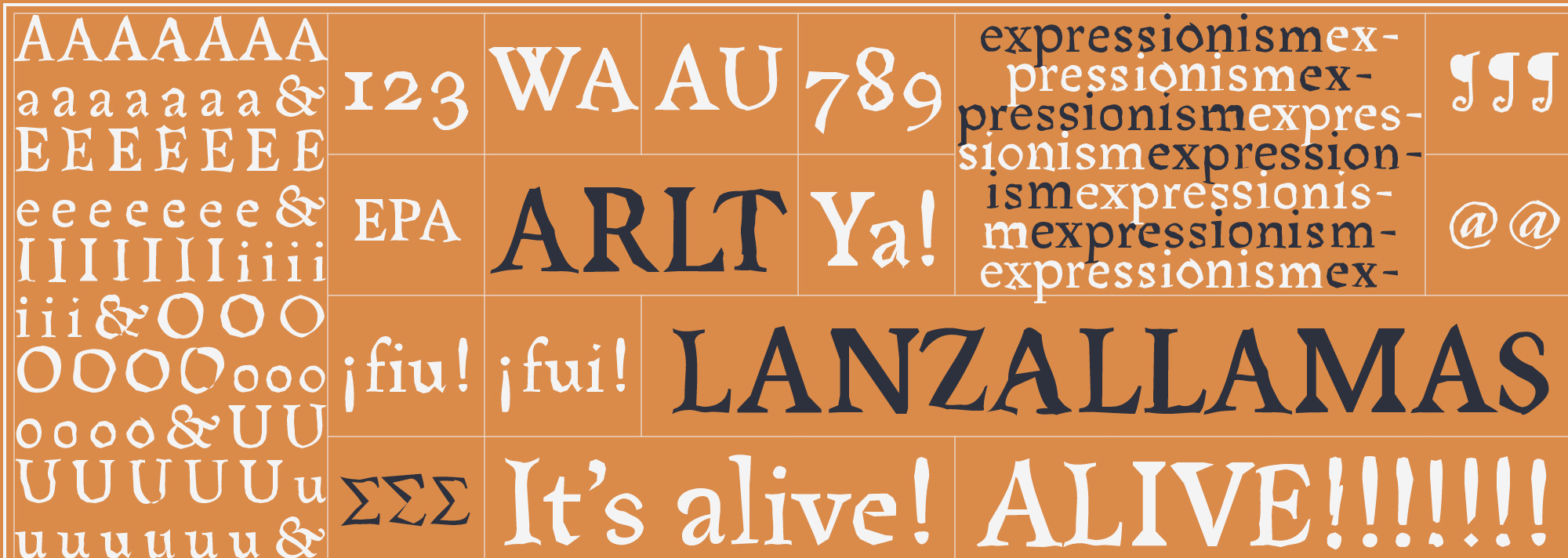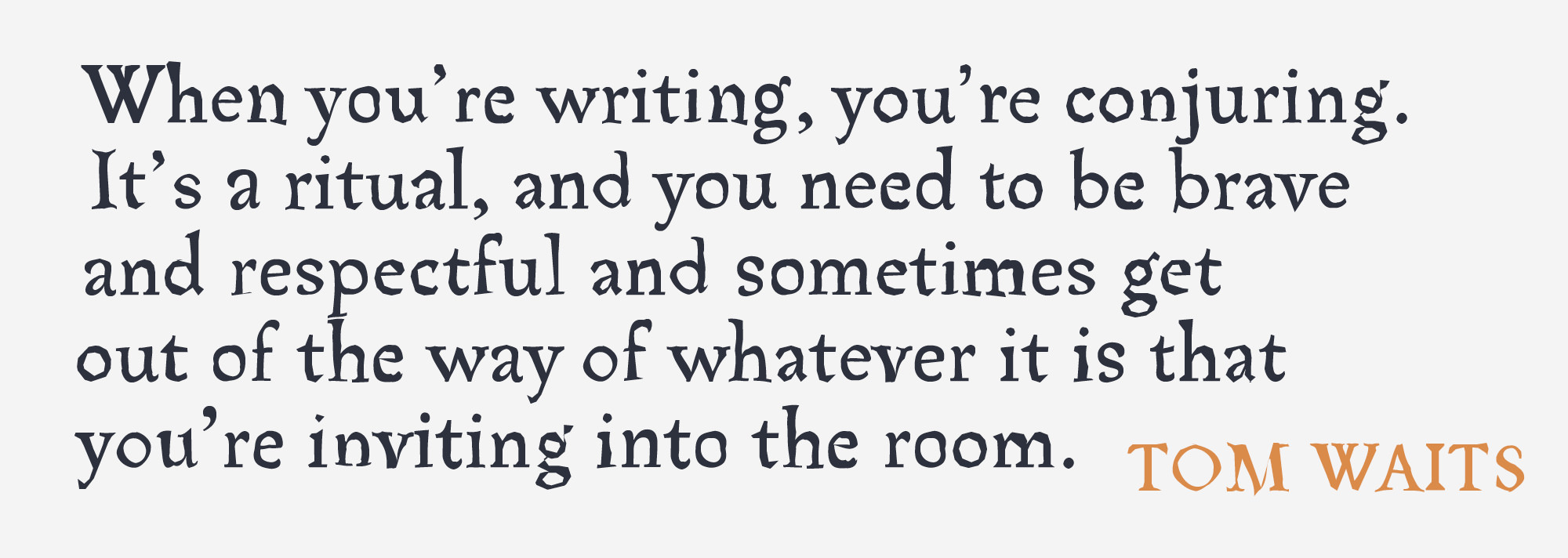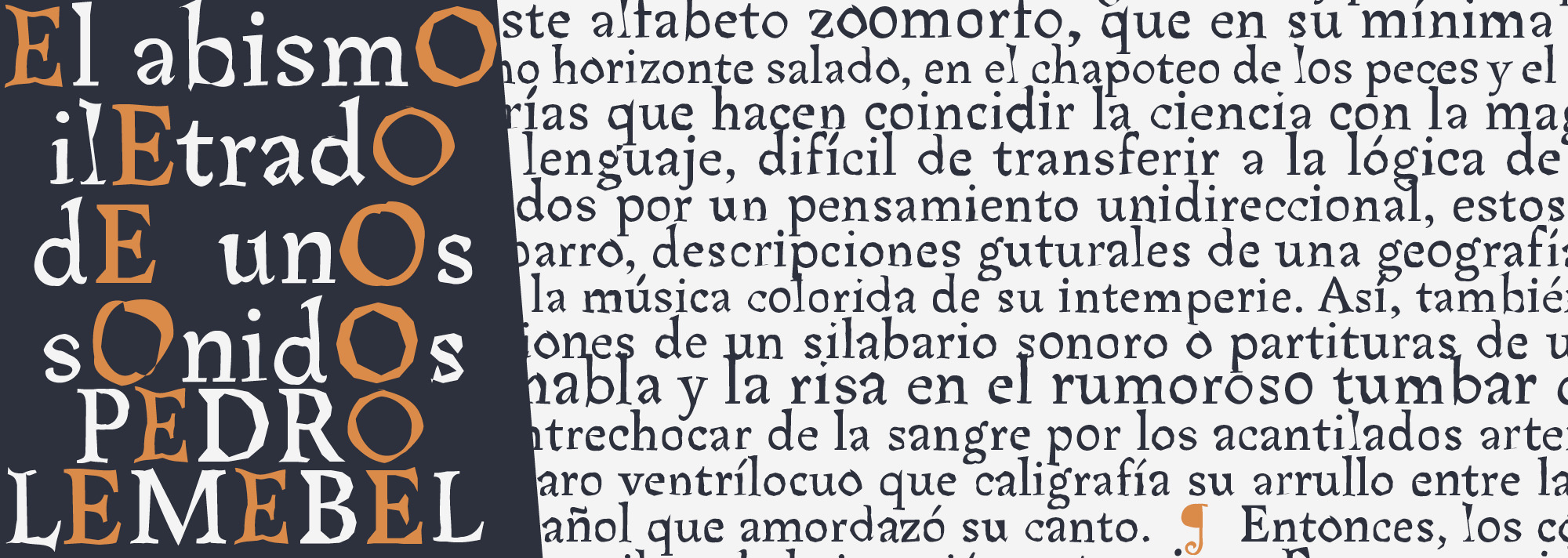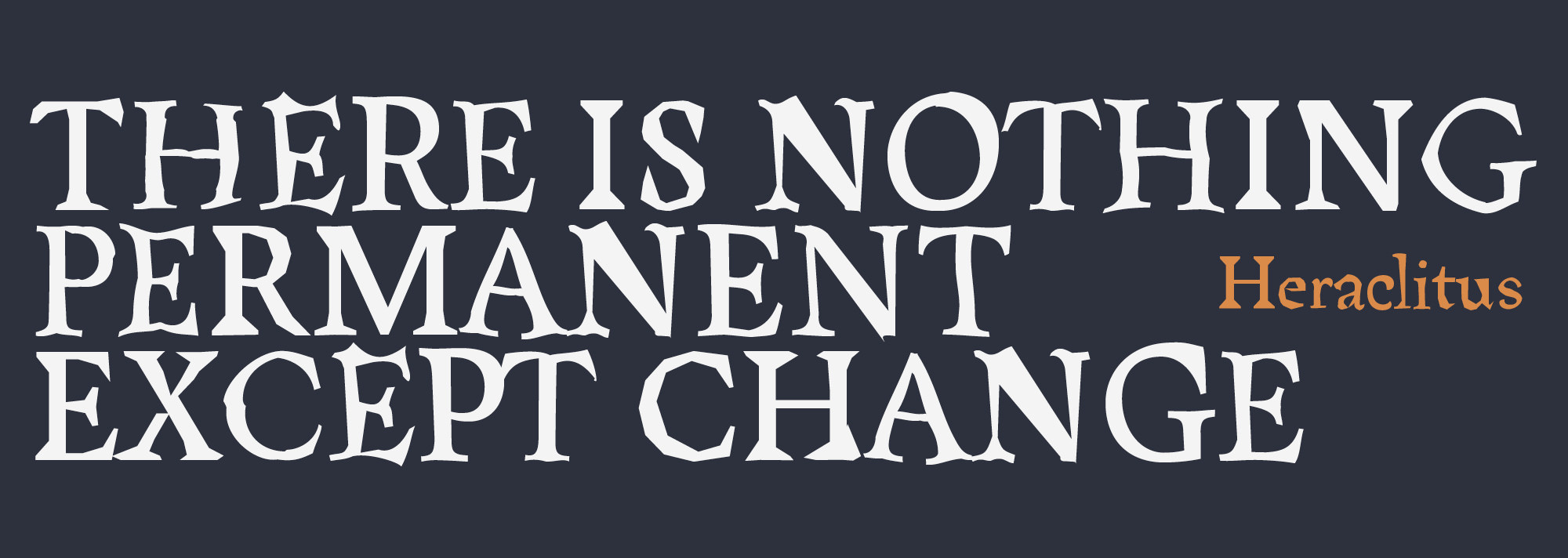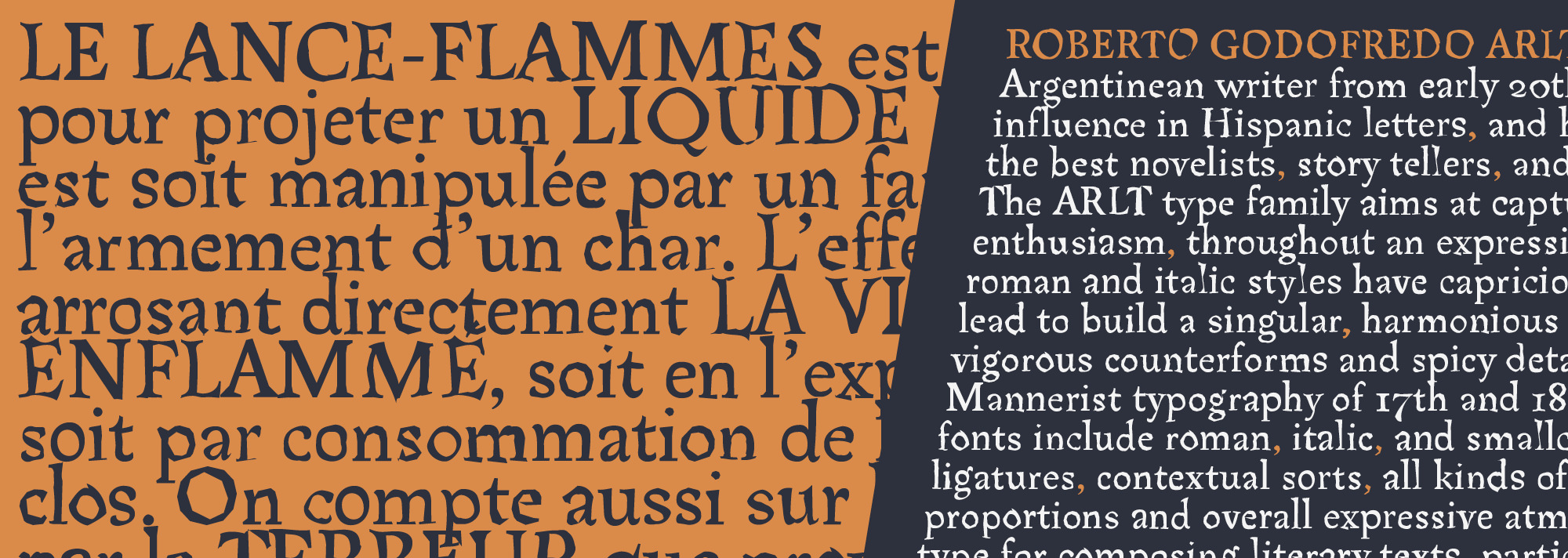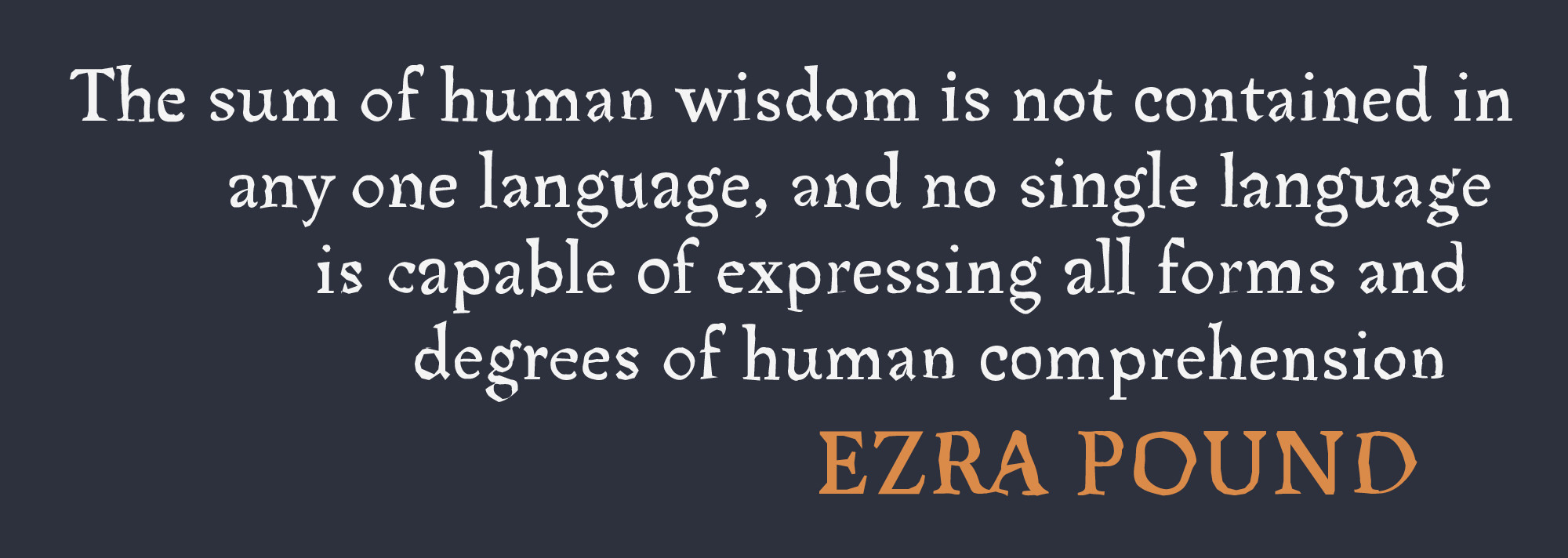
Arlt Lanzallamas is not a font.
Arlt Lanzallamas is a living font.
As you write in your keyboard using Arlt Lanzallamas, the whole text changes its form.
Amaze your readers and retain their attention with words that shake subtly and still remain comfortable to read.
Arlt Lanzallamas. A living font
Arlt Lanzallamas, the ultimate addition to the Arlt family, is a dynamic font based on a programmed cycle that makes it perform a permutation all along the Arlt 7 Locos fonts while you are typing in. The length of the cycle is controled by the text line. It works in any OpenType-sensitive application. Have fun!
Arlt Lanzallamas
Designed by Alejandro Lo Celso
Programmed by Iván Moreno